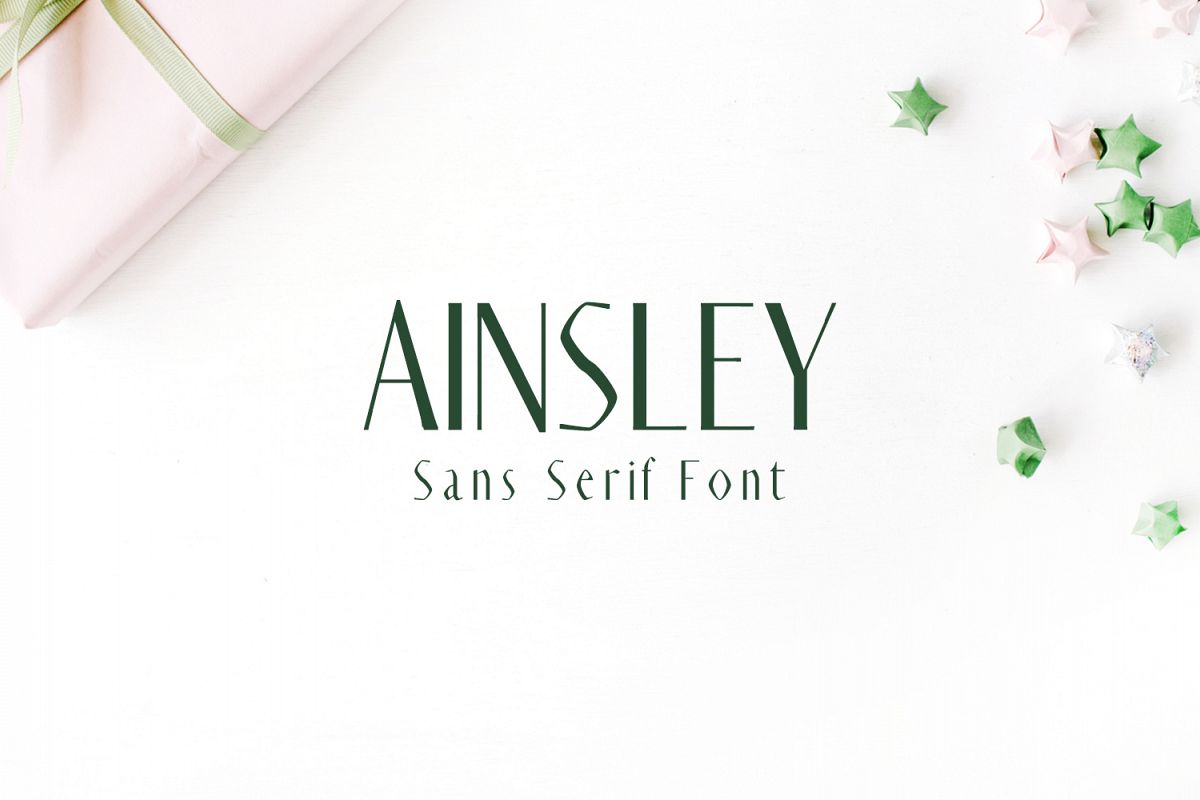
Ainsley Sans Serif Typeface
Ainsley-Regular
Ainsley Sans Serif Font is a customized sans serif font, which contain Regular weight and It features unique and modern sans serif look and feel. Perfect for gorgeous logos, titles, web layouts and branding. It looks gorgeous in all caps with a wide-set spacing if you want to try a classy look, or beautiful on its own in capital and lowercase letters for something completely timeless.
Ainsley Font Features:
• Uppercase Multilingual Letters
• Lowercase Multilingual Letters
• Alternative